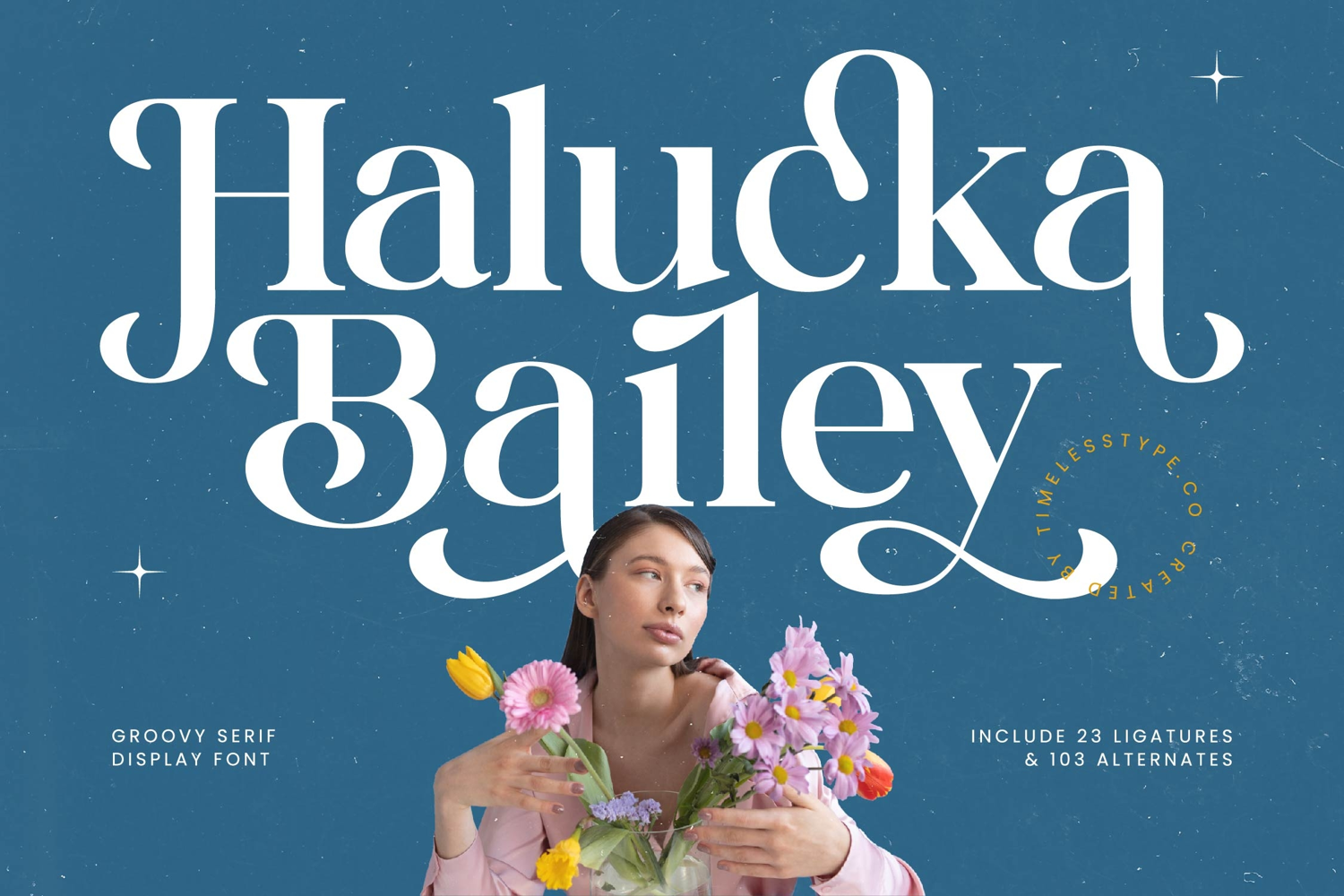
Halucka Bailey - Groovy Serif Display Font
Halucka Bailey
Halucka Bailey italic
Halucka Bailey - Groovy Serif Display Font
The Halucka Bailey Typeface is a groovy serif display font with a retro-modern, playful, and elegant character. Featuring 23 ligatures and 103 stylistic alternates, this font provides designers with high flexibility to create typography that is stylish, expressive, and full of variety. Its bold letterforms, combined with unique decorative curves, deliver a classic groovy vibe infused with a contemporary touch, making it feel both fresh and stylish.
This typeface is highly effective in editorial design, especially for fashion magazines, lifestyle articles, and book covers. The combination of ligatures and alternates allows each composition to appear lively, artistic, and richly varied.
In branding and packaging, Halucka Bailey is ideal for fashion products, cosmetics, artisan foods, premium beverages, and creative lifestyle brands. Its unique and playful character conveys a brand image that feels modern, warm, and memorable.
For entertainment and promotional design, this font works beautifully on movie posters, music albums, event branding, and art festival campaigns. Its groovy yet elegant aesthetic makes it a powerful typographic choice for captivating visual storytelling.
In the realm of digital design, Halucka Bailey is perfectly suited for social media, website branding, digital ads, and motion graphics. With multilingual support, it adapts seamlessly to global campaigns, ensuring consistent style across languages.
In short, Halucka Bailey Typeface is a groovy serif display font designed to bring retro charm, playful energy, and elegance into every project. Perfect for editorial, branding, packaging, entertainment, advertising, and digital campaigns, this font transforms typography into a unique, timeless, and character-rich visual element.